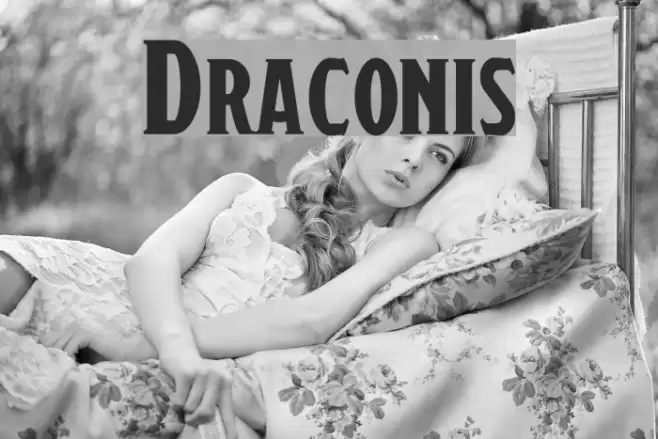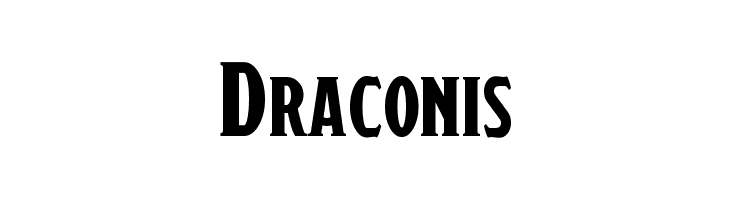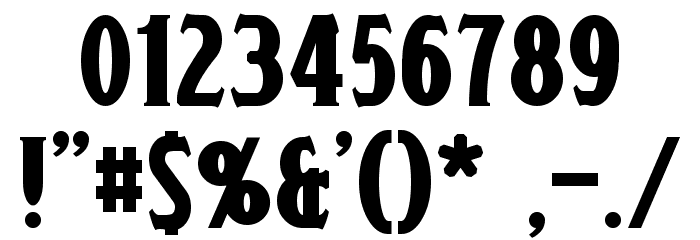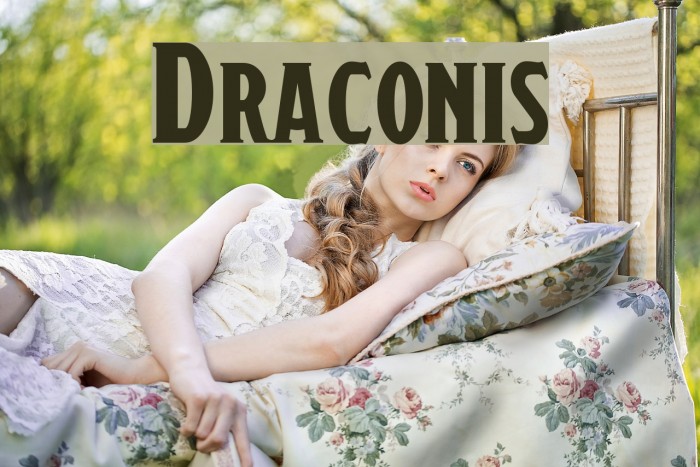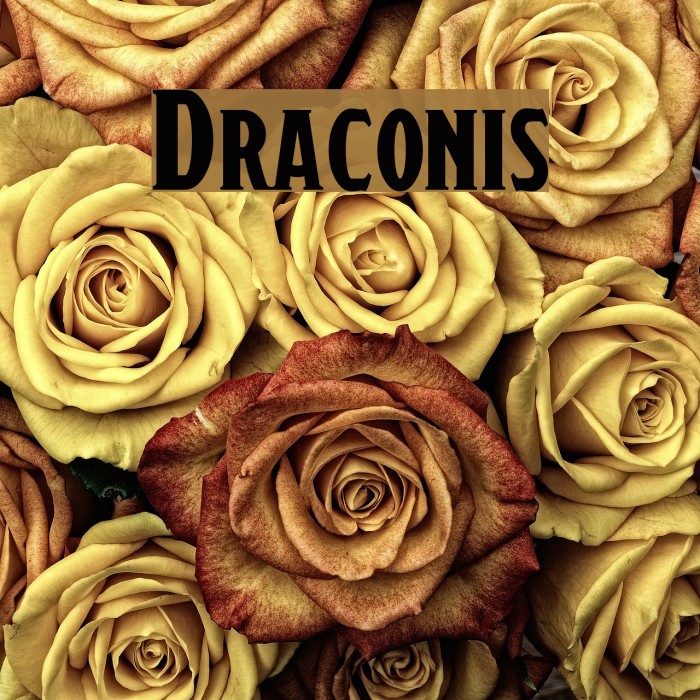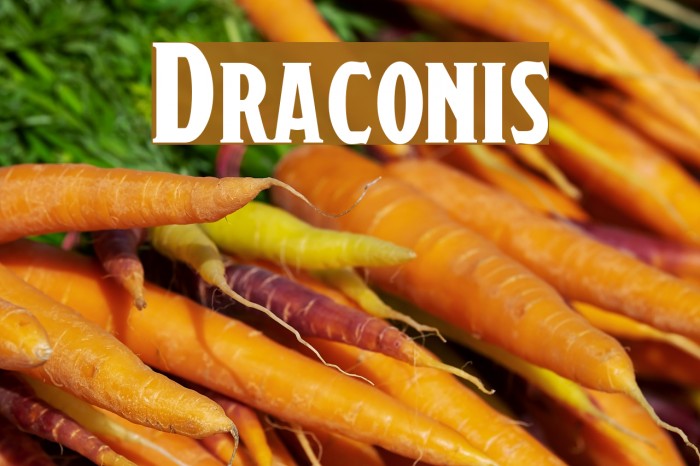
Draconis Font
Draconis Description
This font features a bold and dramatic style with a strong presence. The characters are sharply defined with distinct serifs that add a touch of elegance and authority. The uppercase letters are particularly striking, with a slightly condensed form that enhances their impact. The lowercase letters maintain a consistent style, complementing the uppercase with their robust and confident appearance. Numbers and special characters are crafted with the same attention to detail, ensuring a cohesive look across all text. The font's overall design is reminiscent of classic serif styles but with a modern twist, making it suitable for a variety of applications.
A bold, dramatic serif font with a modern twist, featuring sharp serifs and a strong presence from Uncategorized fonts.